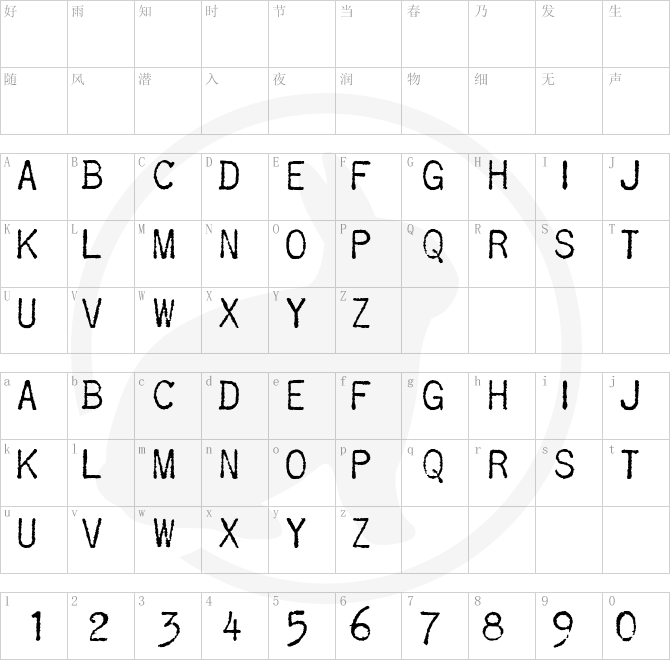
- Font Name:Cablegram
Cablegram-Regular.ttf is a very beautiful artistic font, Cablegram-Regular.ttf is widely used in the design and printing of various books and pictures,Cablegram-Regular.ttf has a strong visual impact,Cablegram-Regular.ttf is a commonly used font in newspapers, magazines and books, and is used in posters, e-commerce Poster design, store design, logo design, font design and other fields.Cablegram-Regular.